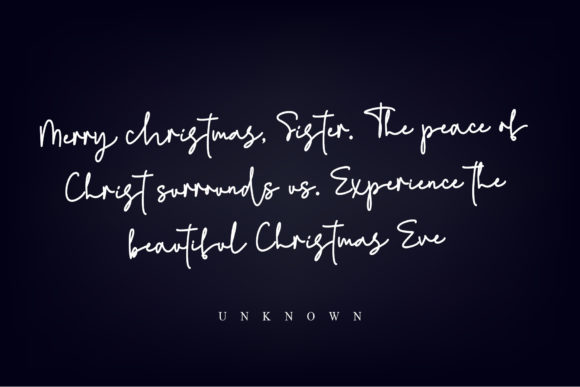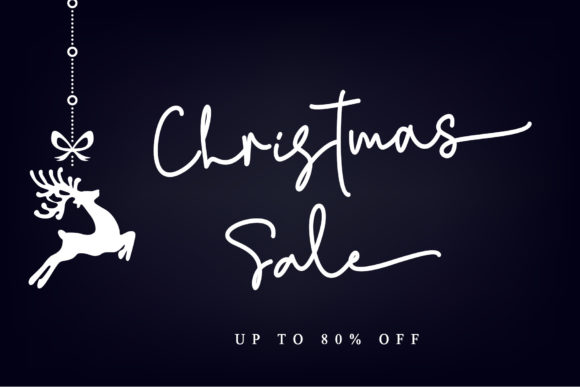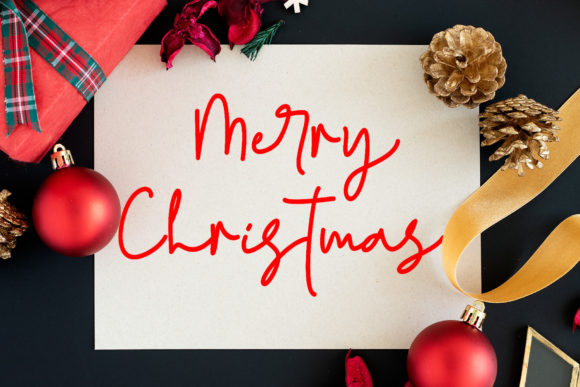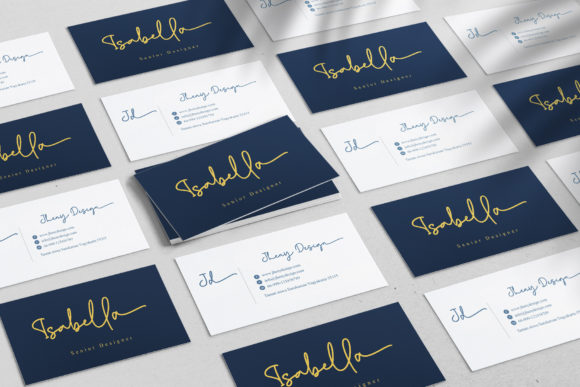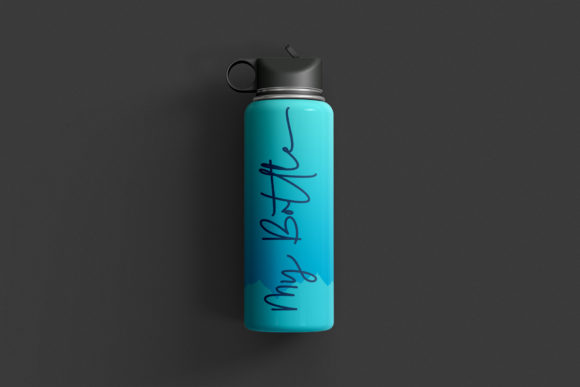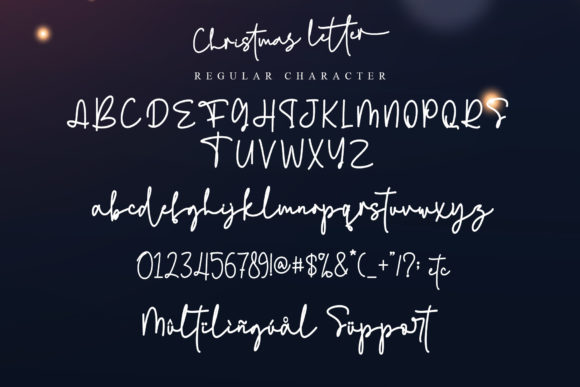
Introducing Christmas Letter Font: A Flowing Script Font for Elegant Designs
Are you looking for a font that exudes elegance and sophistication? Look no further than Christmas Letter Font, a beautiful and flowing script font that’s perfect for creating stunning wedding invitations, stationery art, social media posts, and more. With its ravishing style and versatility, Christmas Letter Font is a must-have for designers and crafters seeking to add a touch of luxury to their projects.
What Makes Christmas Letter Font So Special?
Christmas Letter Font is a script font that boasts a flowing and graceful design, making it perfect for creating elegant and eye-catching text. Its unique style is sure to capture the attention of your audience, whether you’re designing wedding invitations, stationery, or social media posts. The font’s flowing lines and curves create a sense of movement and fluidity, making it ideal for designs that require a touch of sophistication.
PUA Encoding for Easy Access to Glyphs and Ligatures
One of the standout features of Christmas Letter Font is its PUA (Private Use Area) encoding. This means that you can access all of the amazing glyphs and ligatures with ease, allowing you to create complex and beautiful designs. With PUA encoding, you can unlock the full potential of the font and take your designs to the next level. Whether you’re a seasoned designer or a beginner, Christmas Letter Font’s PUA encoding makes it easy to create stunning text.
Endless Design Possibilities with Christmas Letter Font
Christmas Letter Font is a versatile font that can be used for a wide range of design projects. Here are just a few ideas to get you started:
• Wedding Invitations: Create beautiful and elegant wedding invitations that set the tone for the big day.
• Stationery Art: Design stunning stationery art, including greeting cards, thank-you cards, and more.
• Social Media Posts: Create eye-catching social media posts that grab the attention of your followers.
• Signs and Banners: Use Christmas Letter Font to create stunning signs and banners for events, businesses, and more.
Why Choose Christmas Letter Font?
With so many fonts available, why choose Christmas Letter Font? Here are just a few reasons why this font stands out:
• Unique Style: Christmas Letter Font boasts a unique and elegant style that’s sure to set your designs apart.
• Ease of Use: With PUA encoding, accessing glyphs and ligatures is easy, even for beginners.
• Versatility: Christmas Letter Font can be used for a wide range of design projects, from wedding invitations to social media posts.
Tips for Using Christmas Letter Font
Here are a few tips for getting the most out of Christmas Letter Font:
• Experiment with Sizes: Try out different font sizes to see how Christmas Letter Font looks in various contexts.
• Play with Colors: Experiment with different colors to find the perfect match for your design.
• Mix and Match: Combine Christmas Letter Font with other fonts to create unique and interesting text combinations.
Christmas Letter Font is a stunning script font that’s perfect for designers and crafters seeking to add a touch of elegance to their projects. With its flowing and graceful design, PUA encoding, and versatility, this font is a must-have for anyone looking to create beautiful and eye-catching text. Whether you’re designing wedding invitations, stationery art, or social media posts, Christmas Letter Font is sure to impress.